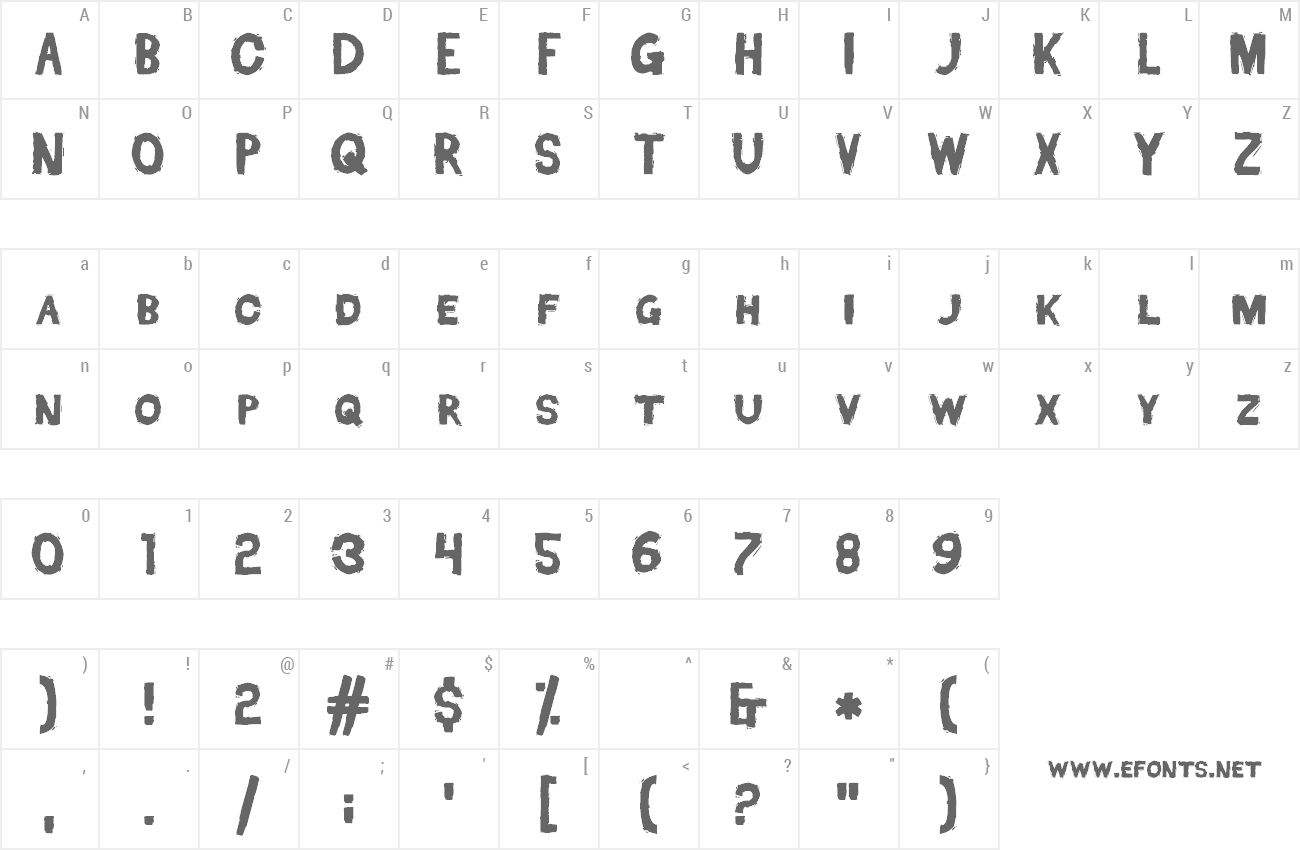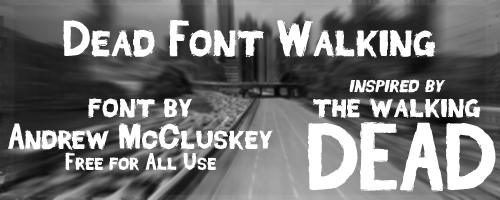
Preview and download Dead Font Walking Font. Created by NALGames in Fancy Horror styles with 100% Free license.
Inspired by The Walking Dead (the Telltale Games logo). Free for all use! |